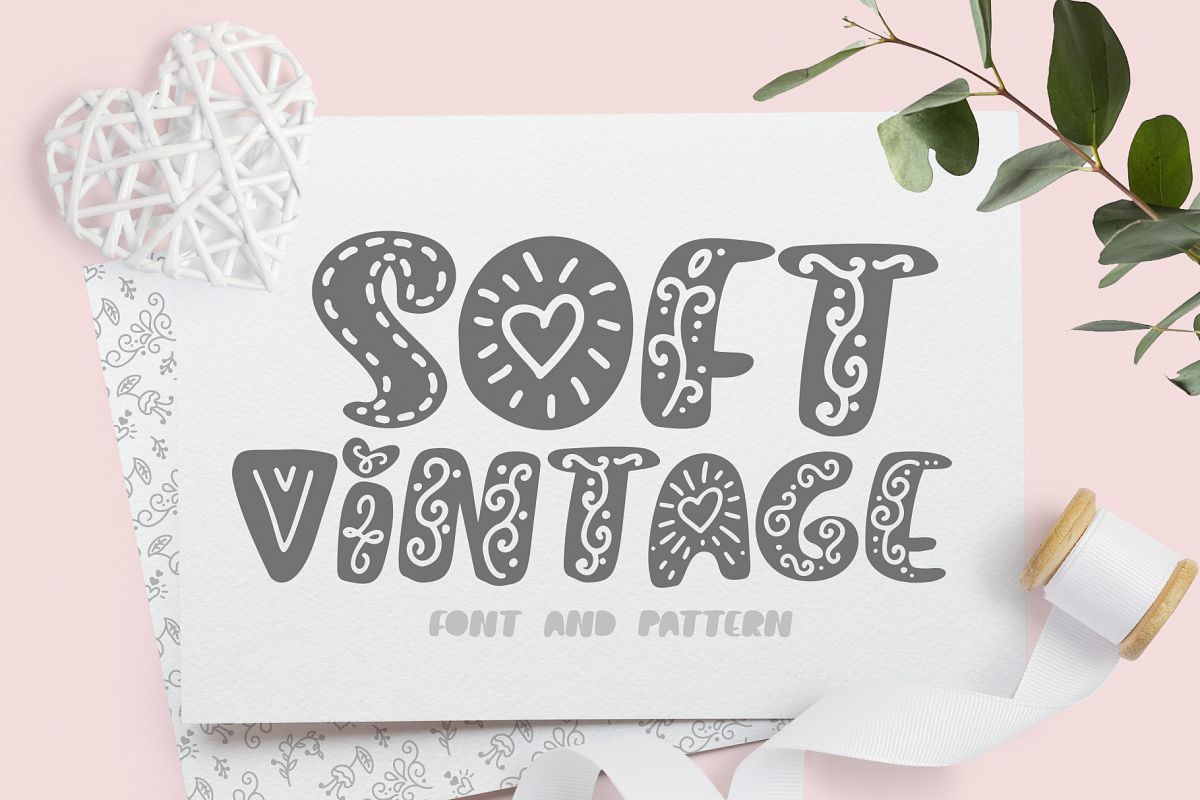
Soft vintage Scandinavian Decor Font
A funny scandinavian modern display font in two styles.
Softvintage is the font is to help yourself while enjoying the world.
Softvintage is Regular and Bold unique handmade draw font which is well suited for the design of children's books, comics, antique subjects, other.
PERFECT FOR
Titles for children albums, books, greeting cards (Christmas, Birthday, other holidays), photo overlays, logos, phrases, gift shops,  presentation, Pinterest or Instagram.